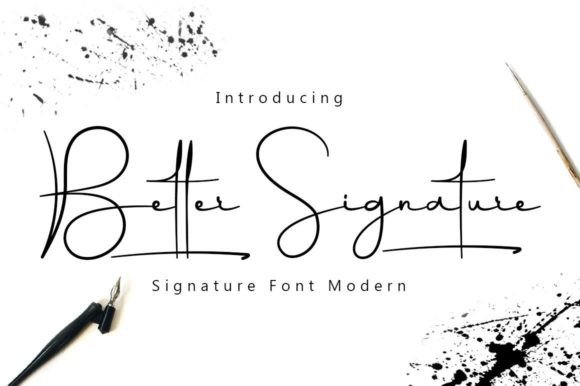
The Elusive Perfect Signature Font: How Better Signature Stole My Heart
I’ll never forget the struggle I faced while working on a branding project for a trendy boutique hotel. My client wanted a sophisticated yet modern feel, and I was determined to deliver. As I scrolled through my font library, I realized I was stuck – nothing seemed quite right. That’s when I stumbled upon Better Signature, a distinct and fashionable signature font that instantly caught my eye. ✨
Here’s what I love about Better Signature:
• ✅ Versatility: No matter the topic or project, Better Signature seems to fit seamlessly. Whether I’m designing a luxury brand logo or a playful greeting card, this font elevates my creations.
• ✅ PUA Encoding: Being PUA encoded means I can access all the glyphs and swashes with ease, making the design process smooth and efficient.
• ✅ Elegant Swashes: The inclusion of beautiful swashes adds a touch of sophistication to any design, making it perfect for high-end branding or special occasions.
And, there are a few small quirks to consider:
• ⚠️ Occasional Kerning Issues: In certain situations, I noticed some kerning issues, especially when using specific swashes. However, these can usually be adjusted manually.
• 🤔 Learning Curve for Beginners: For those new to using OpenType features or glyphs, there might be a slight learning curve. But trust me, it’s worth the effort!
The Story Behind Better Signature: A Designer’s Inspiration
Better Signature was crafted with the goal of creating a versatile, elegant font that could be used across various projects. Inspired by classic calligraphy and modern script fonts, the designer aimed to create a font that exudes sophistication while remaining approachable. The result is a beautiful, PUA-encoded font that has become a staple in many designers’ libraries.
What makes Better Signature unique? Better Signature stands out due to its elegant design, PUA encoding, and the inclusion of beautiful swashes and glyphs, making it highly versatile.
Is Better Signature suitable for body text? While Better Signature is primarily designed for headlines and titles, it can be used for short paragraphs of body text. However, for longer texts, a more readable font might be preferable.